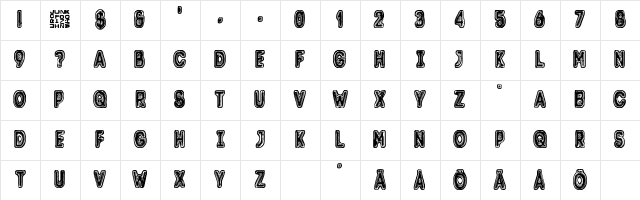
Trolli Regular Free Font
Trolli Regular
Designer: junkohanhero
Design Context for Trolli
Trolli is a composed and adaptable typeface that performs quietly and consistently across a wide range of design contexts.